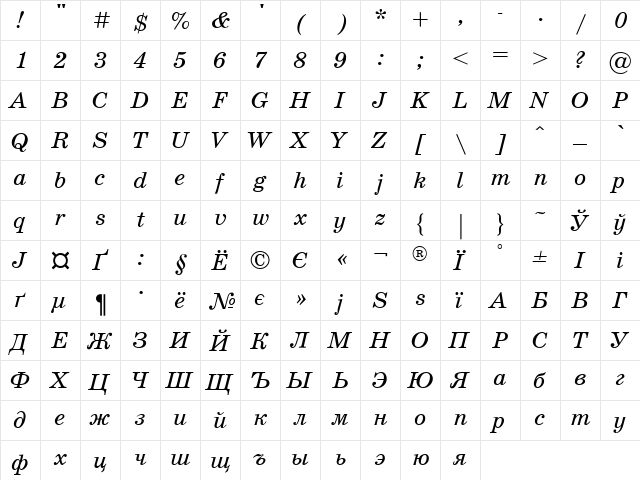
UkrainianSchoolBook Italic
Design Context for UkrainianSchoolBook Typeface
UkrainianSchoolBook is a composed and adaptable typeface that performs quietly and consistently across a wide range of design contexts. The dynamic lean of this cut emphasises speed and emphasis in any layout.
Pro Tip: Use UkrainianSchoolBook for emphasis, pull quotes, and subheadings where its slanted energy can add rhythm to the layout.